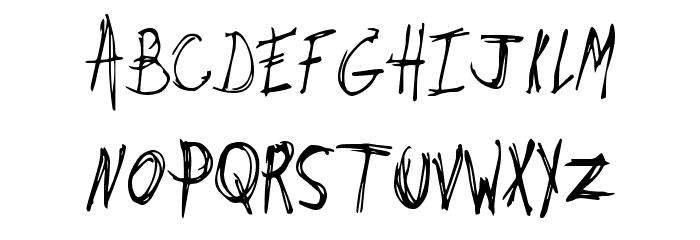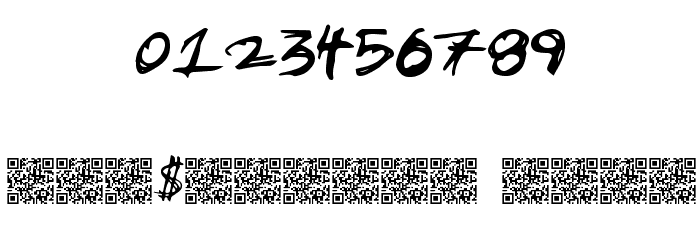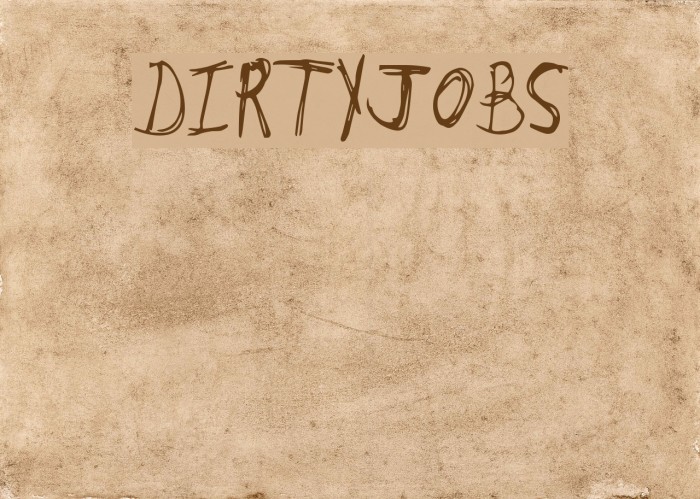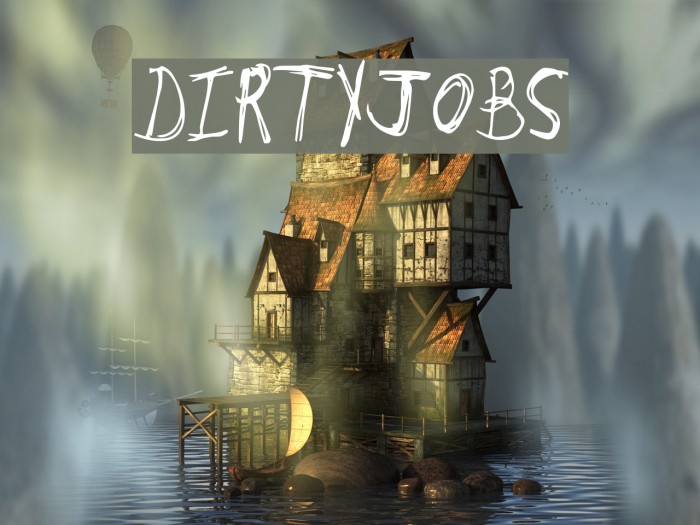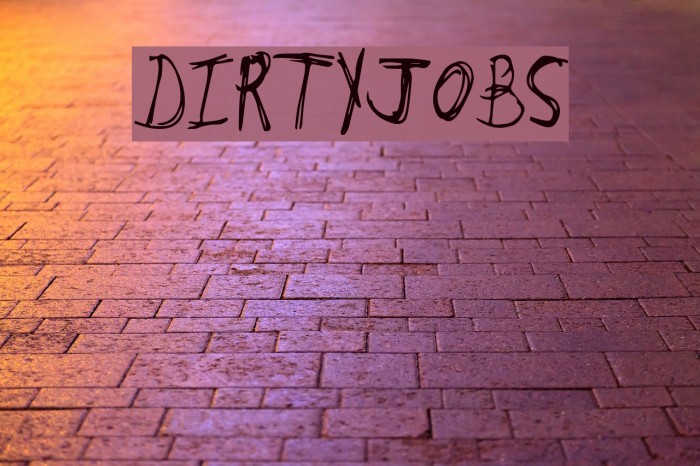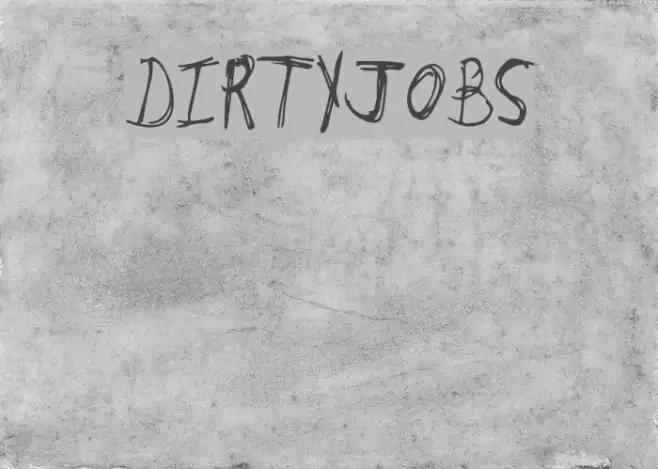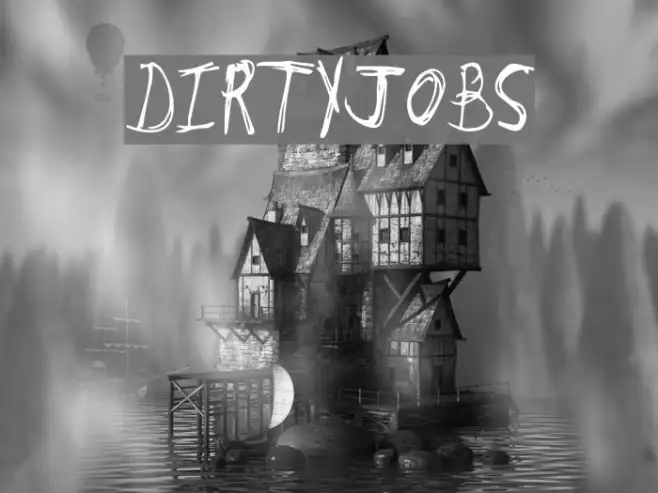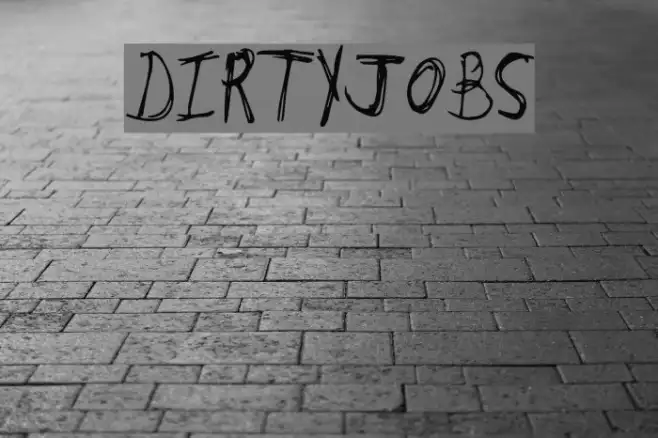
DirtyJobs Font
This font exhibits a rugged, hand-drawn style with an edgy and chaotic appearance. The letters are irregular and jagged, giving off a sense of energy and movement. Each character seems to have been sketched with a rough brush or pen, adding to its raw and unrefined aesthetic. The uppercase and lowercase letters maintain this dynamic style, with varying stroke thickness that enhances the font's boldness. Numbers and special characters follow the same design, ensuring consistency across all elements. This font is ideal for projects that require a gritty, urban feel or a rebellious tone.
A rugged, hand-drawn font with an edgy, chaotic style.